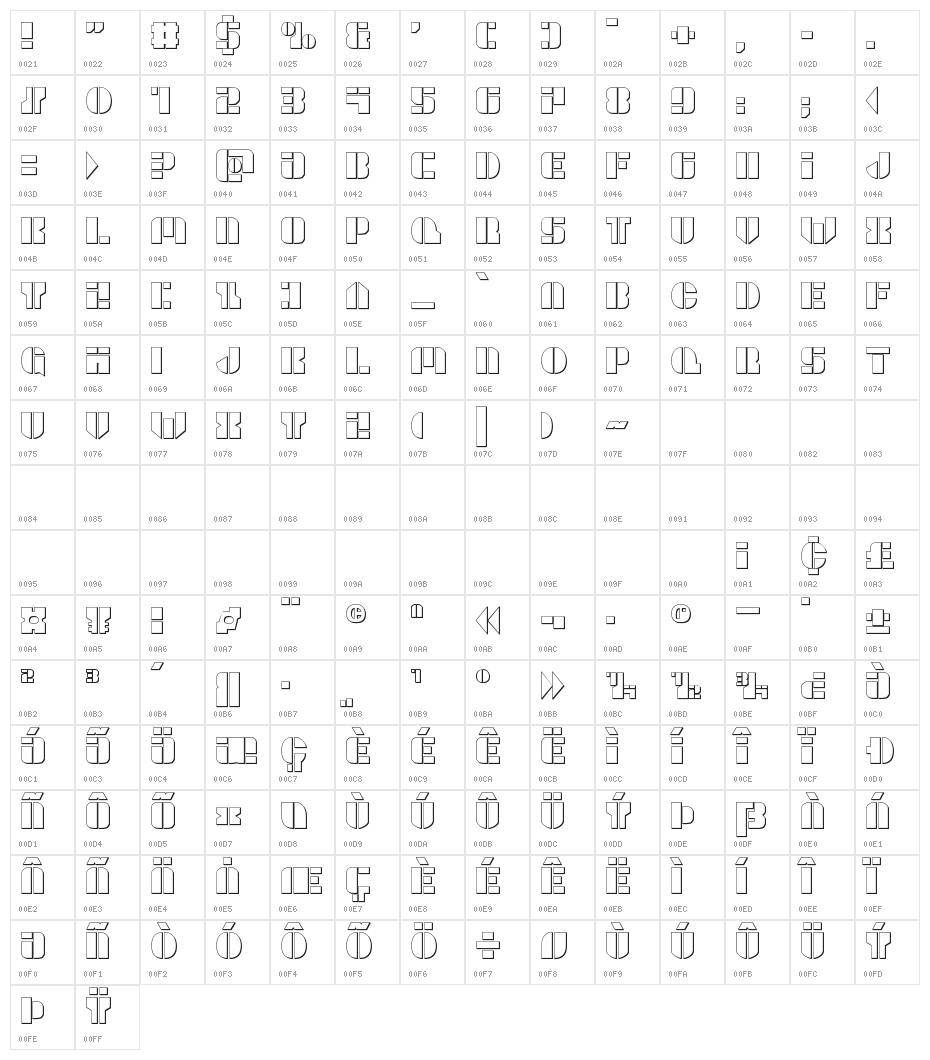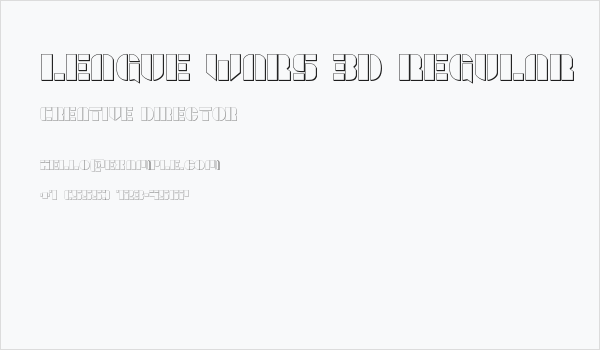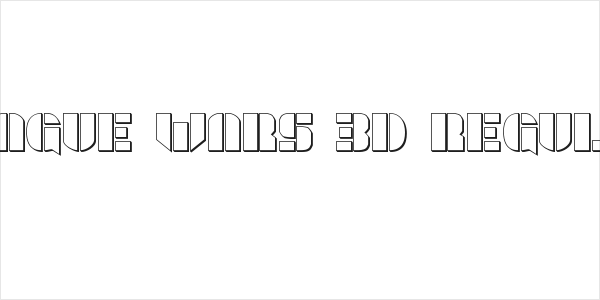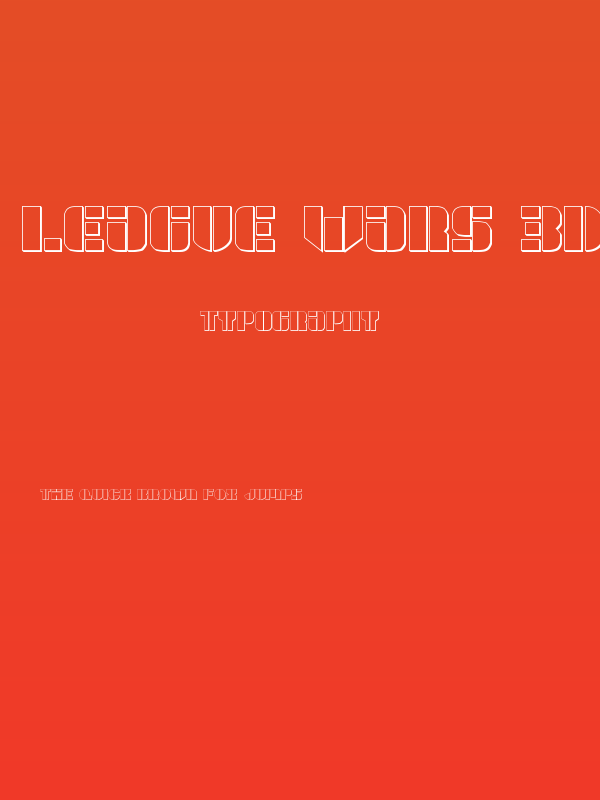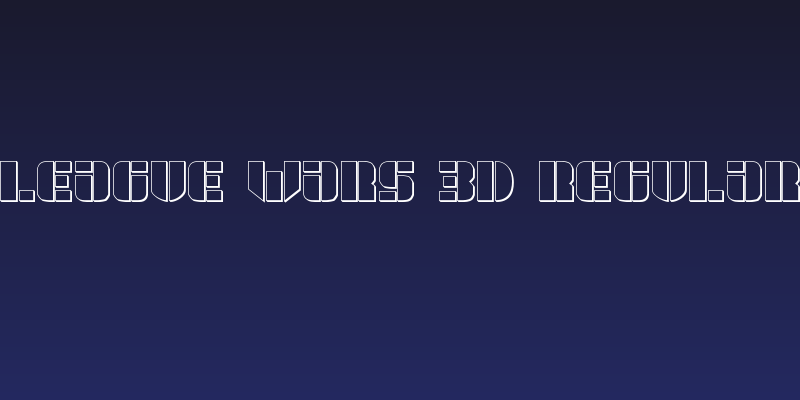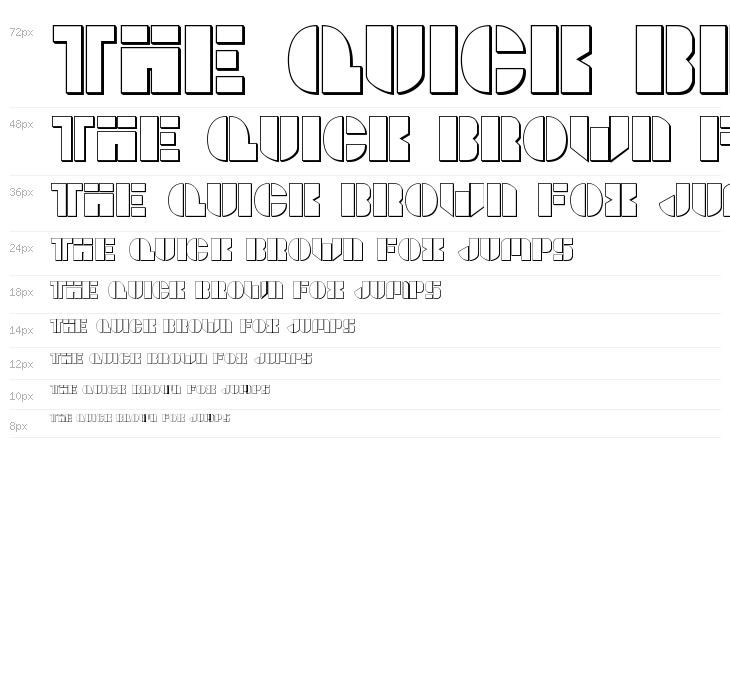
League Wars 3D Regular Font
League Wars 3D Regular Description
This font features a bold, geometric design with a 3D effect, characterized by its blocky, angular shapes and outlined style. The letters are constructed with a futuristic and mechanical aesthetic, giving them a distinct, modern appearance. Each character is outlined, creating a hollow effect that enhances the three-dimensional look. The font maintains a consistent width across all characters, contributing to its uniform and structured feel. The use of sharp angles and straight lines gives it a technical and industrial vibe, making it stand out as a display typeface.
| Proposed Projects | Ideal for video game titles, tech-themed posters, futuristic branding, and sci-fi book covers. |